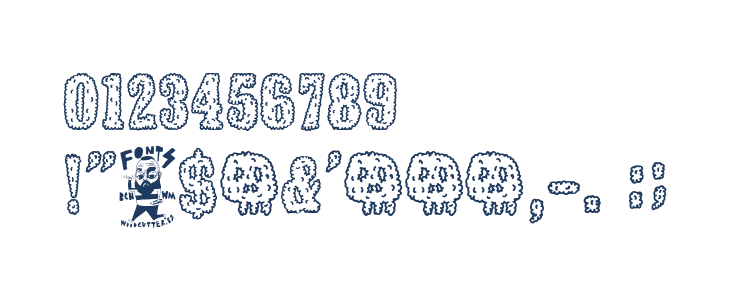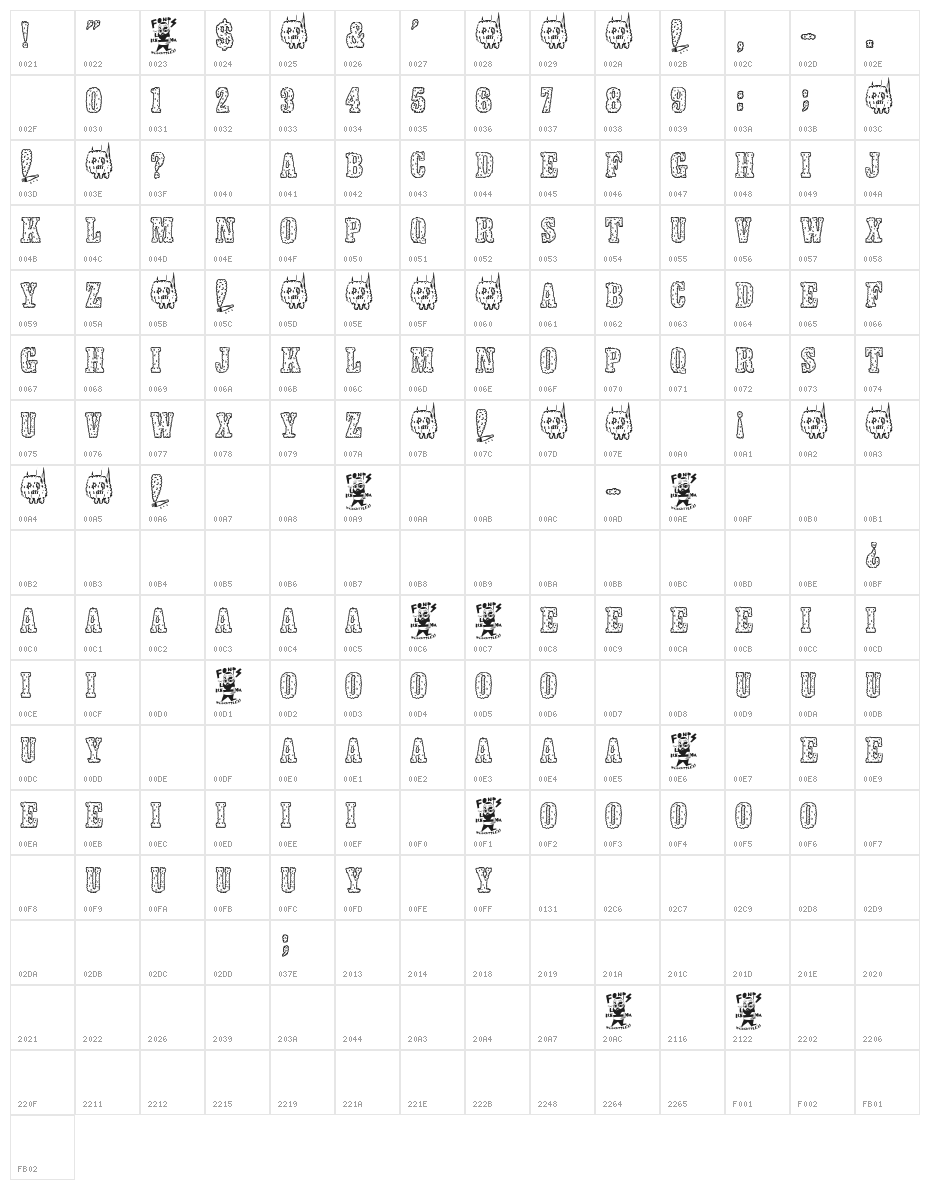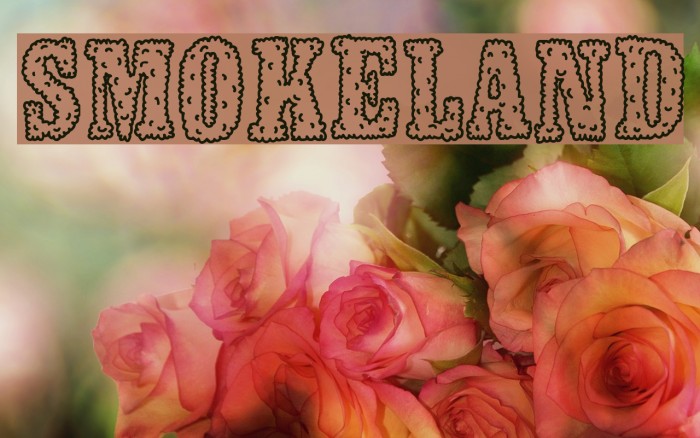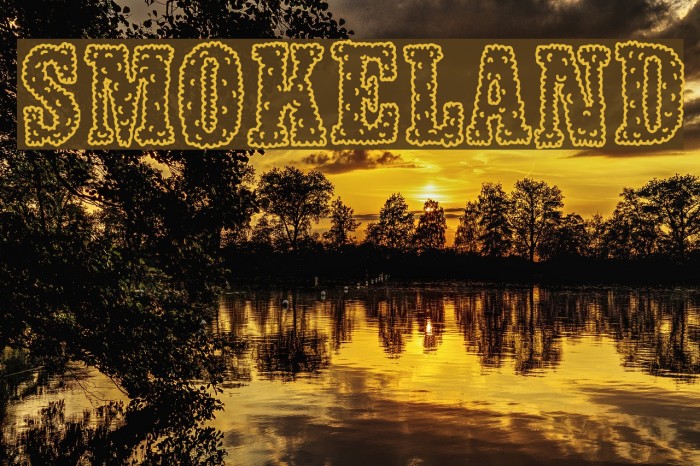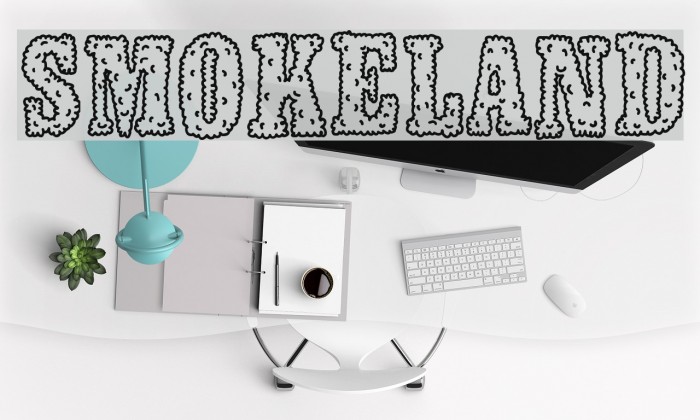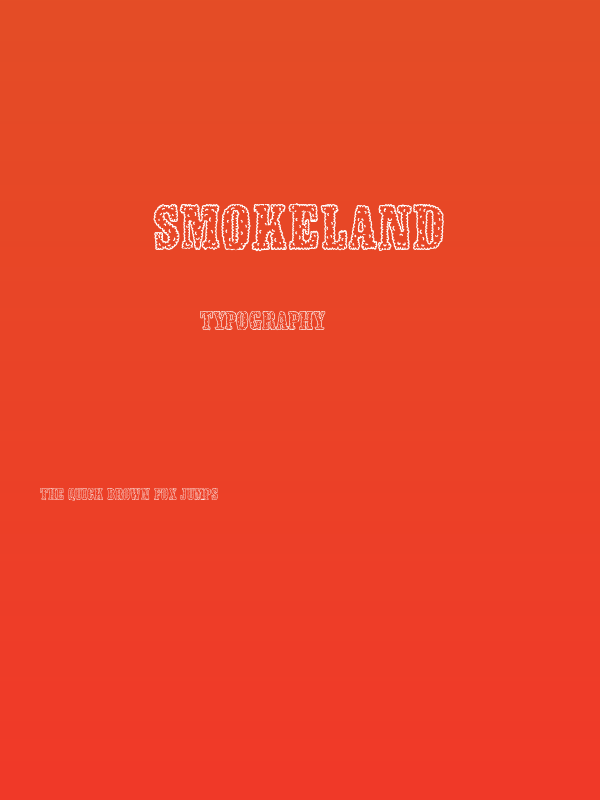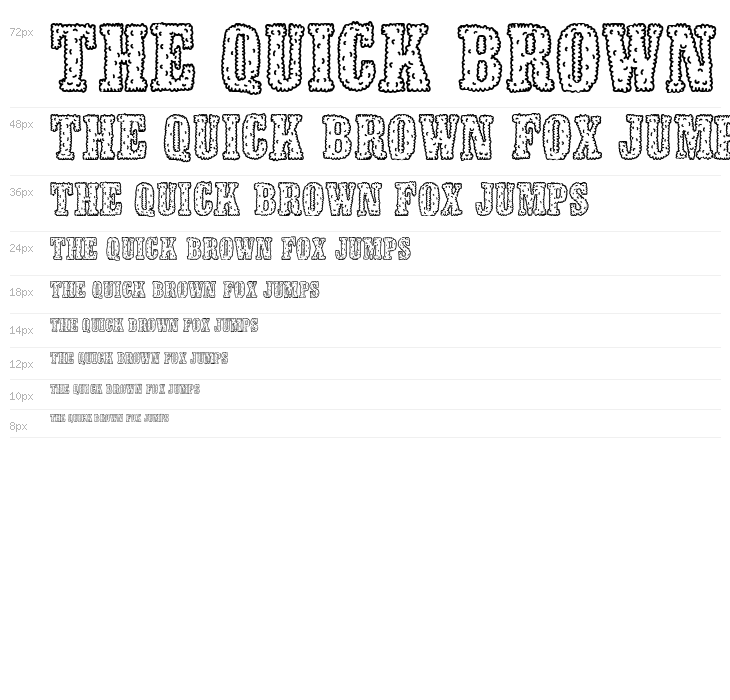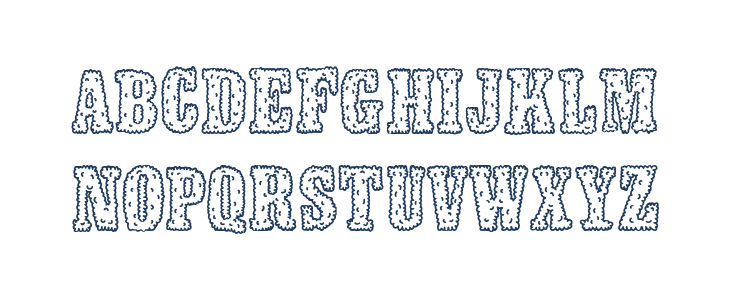
Smokeland Font
Smokeland Description
This font features a playful and whimsical design, characterized by its cloud-like, fluffy outlines that give each character a puffy appearance. The letters are bold and have a distinct, decorative style that makes them stand out. The texture resembles smoke or clouds, adding a unique and creative touch to the typography. This font is ideal for projects that require a fun and eye-catching aesthetic, such as children's book covers, party invitations, or playful branding materials. The characters are evenly spaced, ensuring readability while maintaining their decorative appeal.
| Proposed Projects | Ideal for children's books, party invitations, playful branding, and creative posters. |